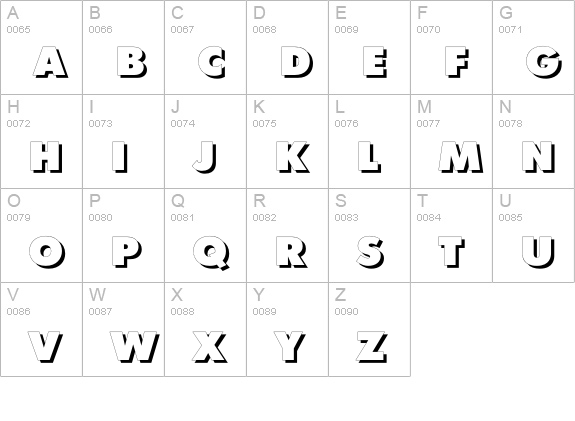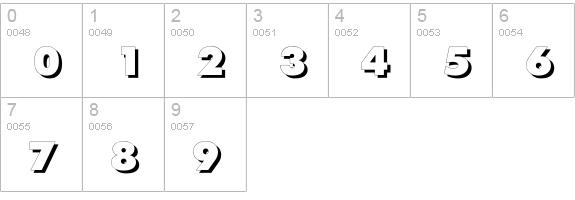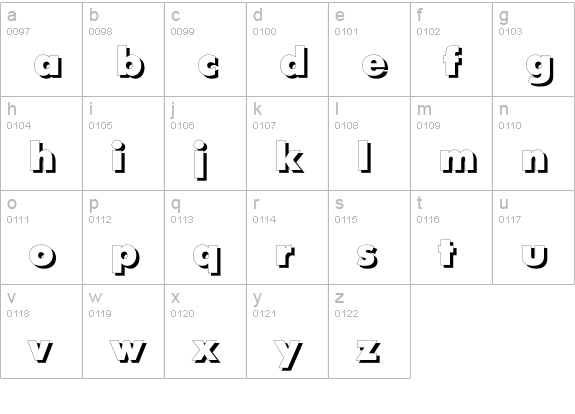
PT FuturaFuturis Black Shadow Cyrillic is a maximum-weight, dramatic variant in the PT typeface family \xE2\x80\x94 well suited to maximum-impact headlines, posters, and packaging.
PT FuturaFuturis Black Shadow Cyrillic font is a bold and stylish typeface that exudes a sense of modernity and sophistication. With its sleek design and sharp edges, this font is perfect for making a statement in your designs. The Cyrillic characters add a unique touch to the overall look, making it ideal for projects that require a touch of elegance. The best part about this font is that it is available for free download at FontsMarket.com. By downloading this font, you can elevate your designs and give them a professional and polished look without spending a penny. So why wait? Enhance your projects with PT FuturaFuturis Black Shadow Cyrillic font today!